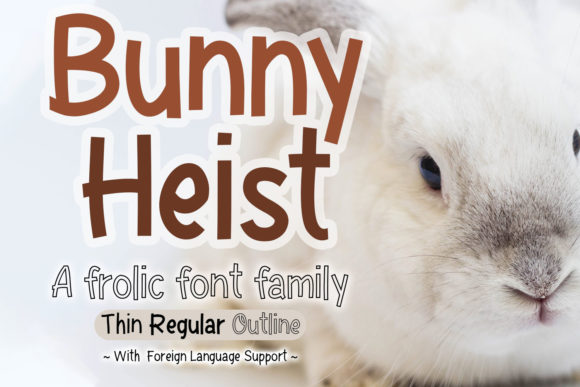
Meet Bunny Heist, the display font that's as playful as a bunny on the hop! With its adorable curves and charming quirks, this font will make your designs jump off the page.
Indulge in the whimsy of Bunny Heist, where letters dance and words come alive. Whether you're crafting invitations, social media posts, or even just adding a touch of fun to your everyday documents, this font will add a smile to every project.
Embrace the boundless creativity that Bunny Heist offers. Its versatility knows no bounds, from whimsical greeting cards to quirky posters and everything in between. Let your imagination soar and create designs that will captivate and delight.
Join the Bunny Heist adventure and transform your designs into something truly extraordinary. This font is not just a font; it's a portal to a world of endless possibilities. Dive in and experience the joy of creating with Bunny Heist today!